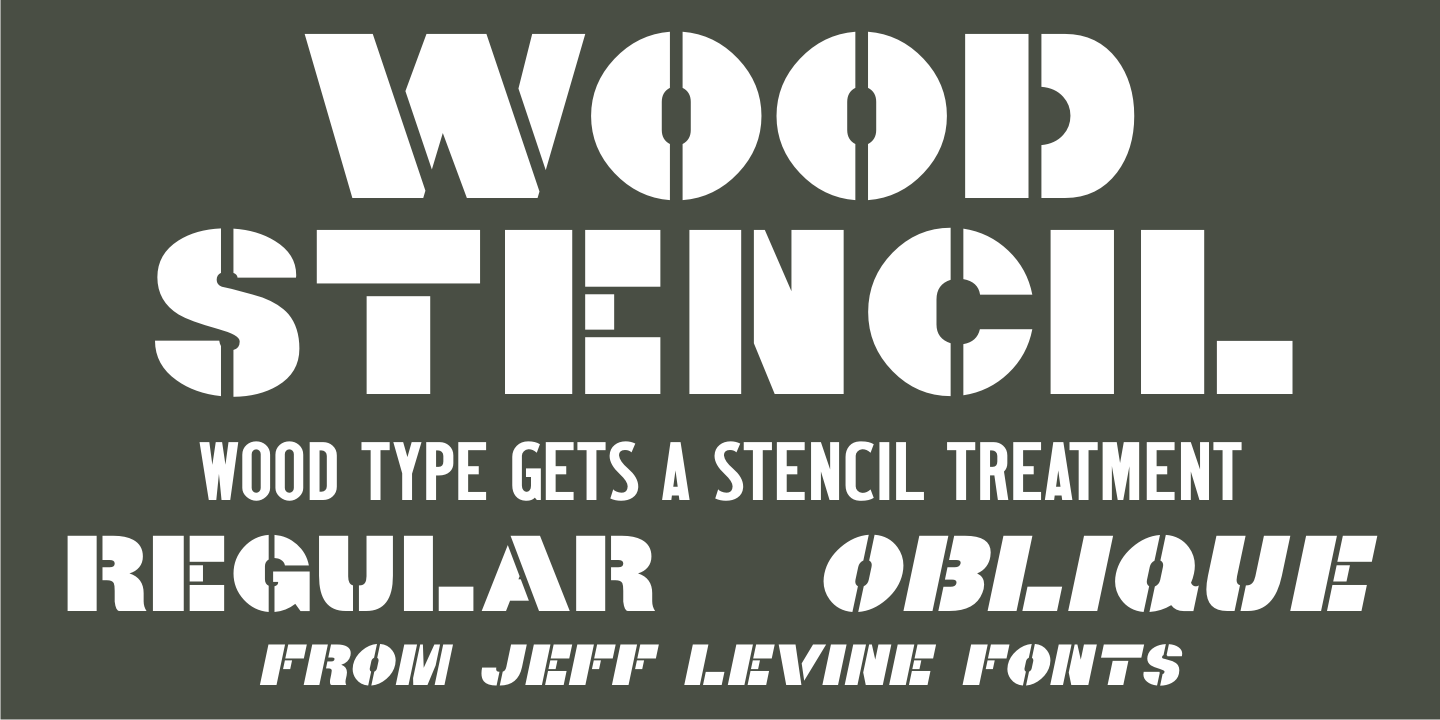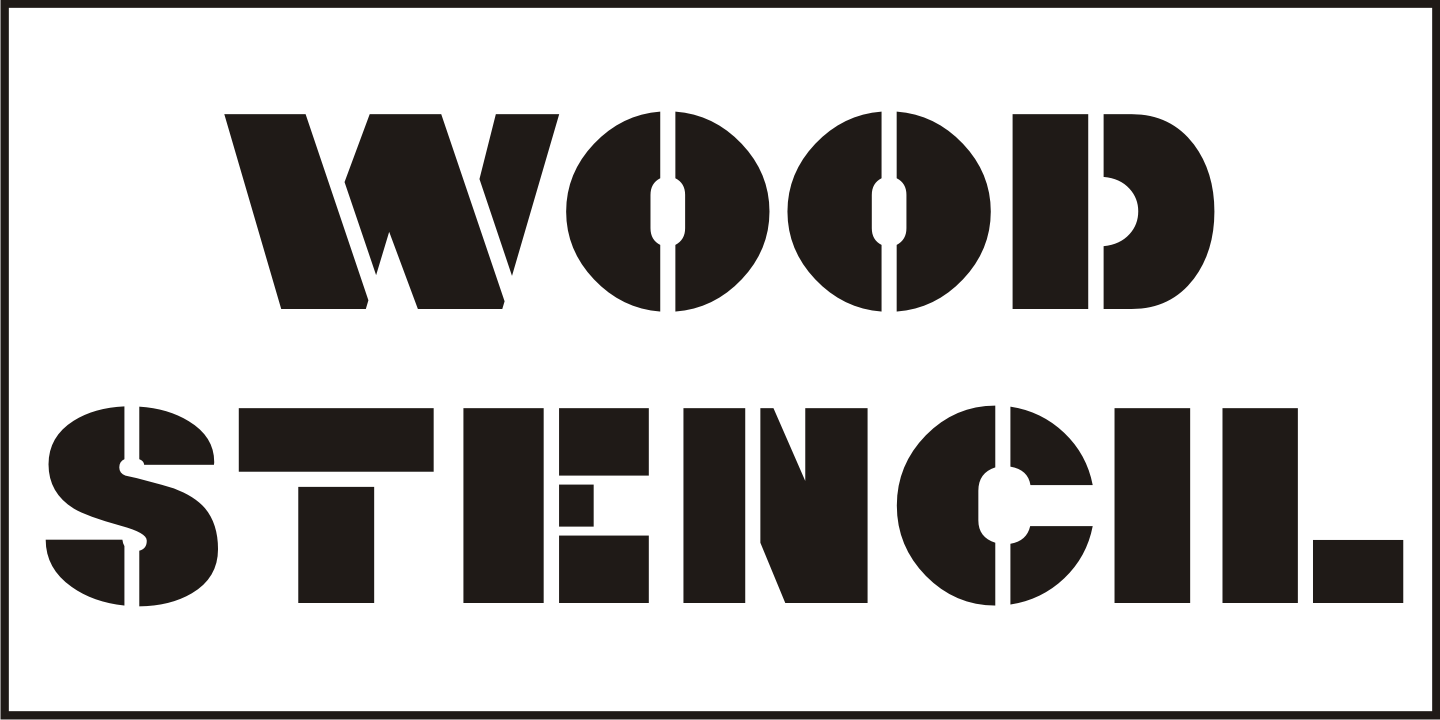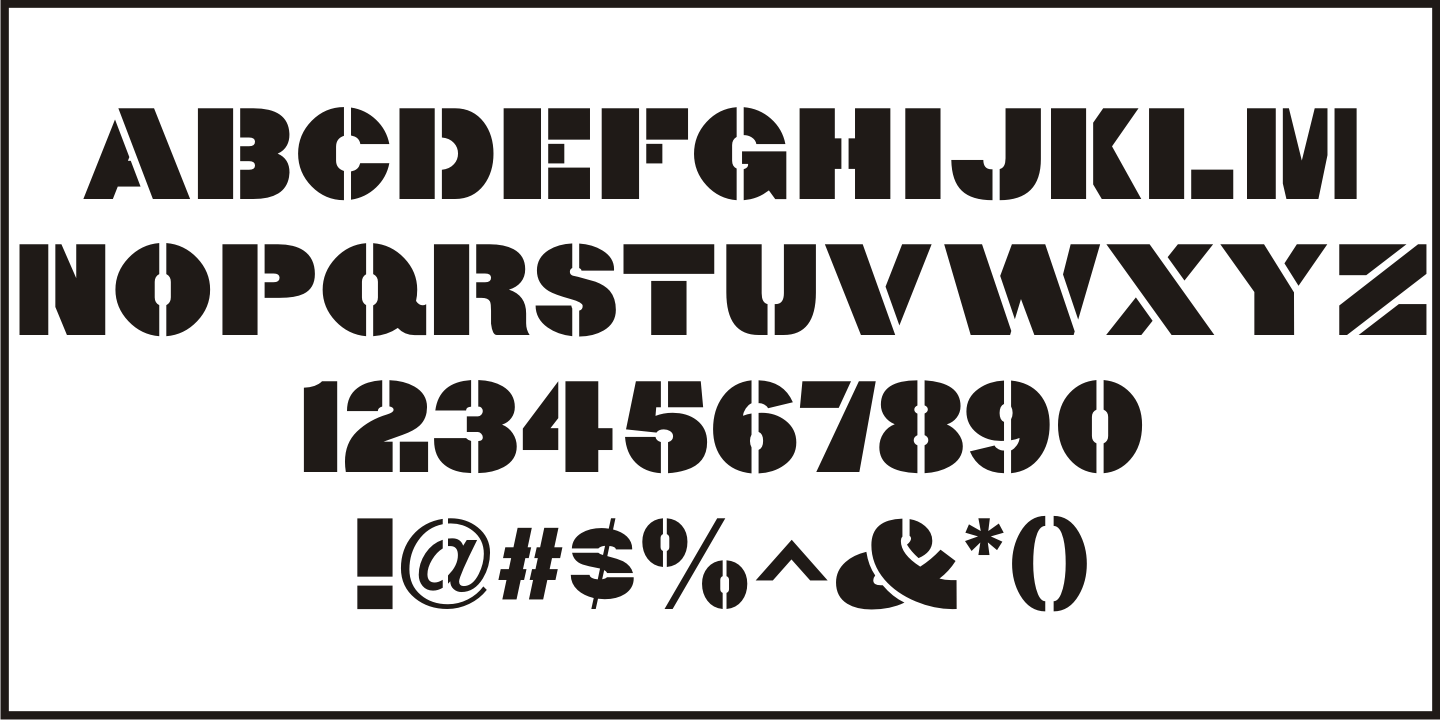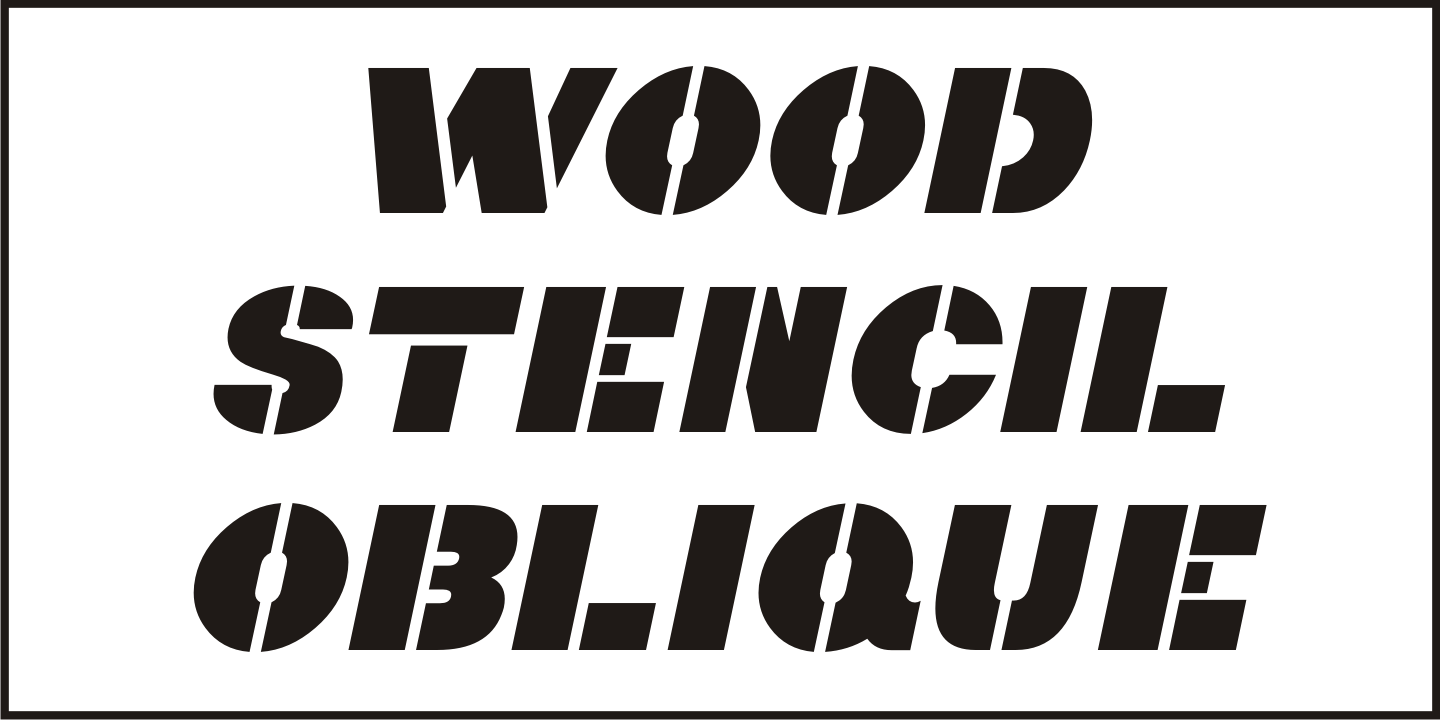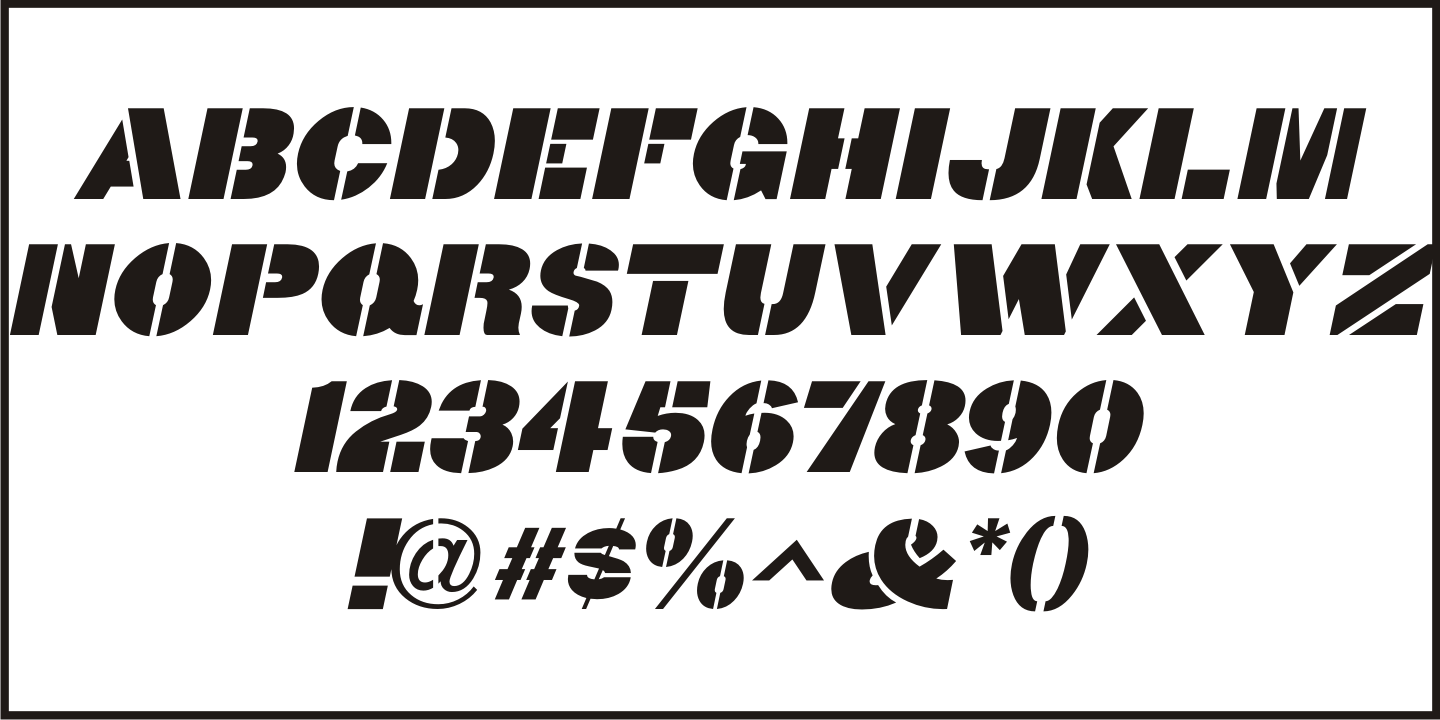
Wood Stencil
Giving a stencil treatment to a classic wood type sans serif grotesk design, Wood Stencil JNL is available in both regular and oblique versions.